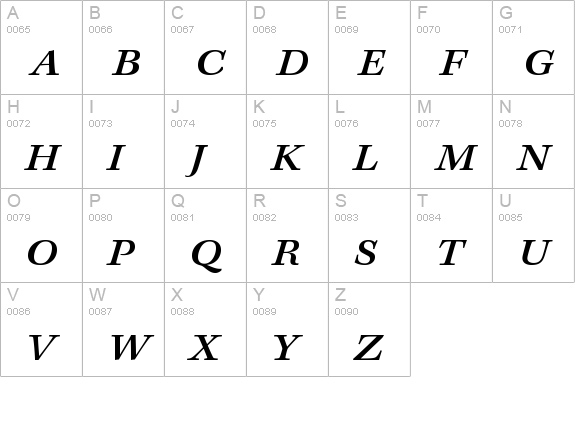
Kepler Std Medium Extended Italic Caption Font Details
Kepler Std Medium Extended Italic Caption is a balanced, medium-weight, extended-width, italic variant in the Kepler typeface family \xE2\x80\x94 well suited to sub-headlines, navigation, and balanced editorial work.
Kepler Std Medium Extended Italic Caption font is a versatile and elegant typeface that adds a touch of sophistication to any design project. With its elongated letterforms and subtle slant, this font is ideal for captions and small text sizes, ensuring readability without compromising style. The Kepler Std Medium Extended Italic Caption font strikes a perfect balance between modernity and classical appeal. Its clean lines and graceful curves create a harmonious visual experience that effortlessly captures attention. Whether used for print or digital media, this font exudes professionalism and sophistication. One of the most remarkable features of the Kepler Std Medium Extended Italic Caption font is that it is available for free download at FontsMarket.com. This means that designers, students, and anyone in need of a high-quality font can access it without any cost. The font's availability on FontsMarket.com ensures that it can be easily obtained and used in various creative projects. With its medium weight and extended proportions, this font offers versatility in application. It can be utilized for a wide range of design purposes, from editorial layouts to branding materials. Its italicized style adds a touch of elegance and flair, making it a perfect choice for projects that require a refined and sophisticated aesthetic. The Kepler Std Medium Extended Italic Caption font is meticulously crafted, ensuring high legibility and aesthetic appeal. Its carefully designed letterforms and balanced spacing make it suitable for both on-screen and printed materials. Whether used for headlines, subheadings, or body text, this font ensures clear communication and an engaging visual experience. In conclusion, the Kepler Std Medium Extended Italic Caption font is a valuable addition to any designer's toolkit. Its versatility, elegance, and availability as a free download at FontsMarket.com make it an excellent choice for various design projects. This font effortlessly combines modernity with classical style, ensuring a timeless and professional appearance.